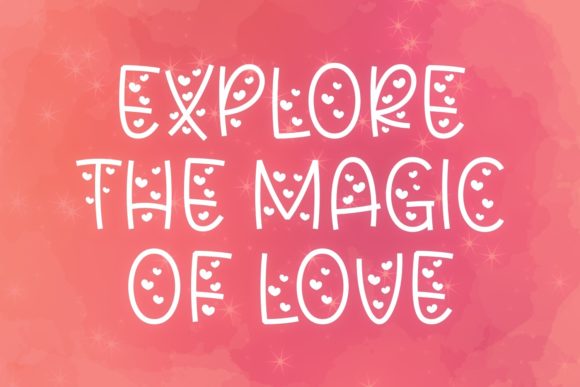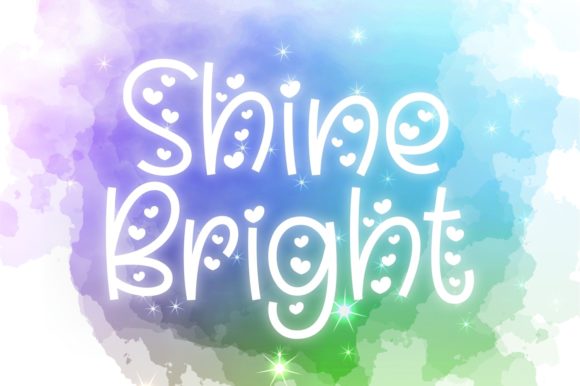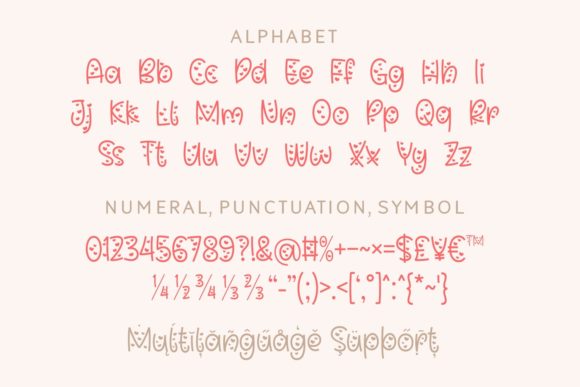
Introducing Amore Brigitta Font: The Perfect Handwritten Font for Valentine’s Day and Love Crafts
Are you looking for a beautiful and unique font to add a touch of love to your Valentine’s Day cards, crafts, and projects? Look no further than Amore Brigitta Font! This stunning handwritten font is sprinkled with adorable heart elements, making it perfect for spreading love and affection in any project.
What is Amore Brigitta Font?
Amore Brigitta Font is a beautiful handwritten font that is designed to capture the essence of love and romance. With its delicate and whimsical touch, this font is perfect for adding a personal and emotional touch to any project. The font features adorable heart elements that are scattered throughout, giving it a playful and romantic feel.
Features of Amore Brigitta Font
Amore Brigitta Font has several features that make it a standout font for Valentine’s Day and love crafts. Some of its key features include:
- Handwritten style: Amore Brigitta Font has a beautiful handwritten style that gives it a personal and emotional touch.
- Heart elements: The font features adorable heart elements that add a playful and romantic touch to any project.
- Perfect for Valentine’s Day: Amore Brigitta Font is perfect for Valentine’s Day cards, crafts, and projects.
- Exclusive font: Amore Brigitta Font is an exclusive font that is not available anywhere else.
Uses of Amore Brigitta Font
Amore Brigitta Font is a versatile font that can be used in a variety of projects, including:
- Valentine’s Day cards: Amore Brigitta Font is perfect for creating beautiful and romantic Valentine’s Day cards.
- Love crafts: The font is great for use in love crafts, such as making love coupons, gift tags, and other crafts.
- Wedding projects: Amore Brigitta Font can be used in wedding projects, such as creating wedding invitations, programs, and other wedding materials.
- Social media graphics: The font can be used to create social media graphics, such as Facebook posts, Instagram posts, and other social media graphics.
Benefits of Using Amore Brigitta Font
There are several benefits to using Amore Brigitta Font in your projects, including:
- Unique and exclusive: Amore Brigitta Font is an exclusive font that will give your projects a unique and special touch.
- High-quality: Amore Brigitta Font is a high-quality font that is designed to produce beautiful and clear text.
- Perfect for designers and crafters: The font is perfect for designers and crafters who want to add a touch of love and romance to their projects.
Amore Brigitta Font is a beautiful handwritten font that is perfect for adding a touch of love and romance to any project. With its adorable heart elements and delicate touch, this font is perfect for Valentine’s Day cards, love crafts, and other projects. Whether you’re a designer or crafter, Amore Brigitta Font is a great addition to your font collection.